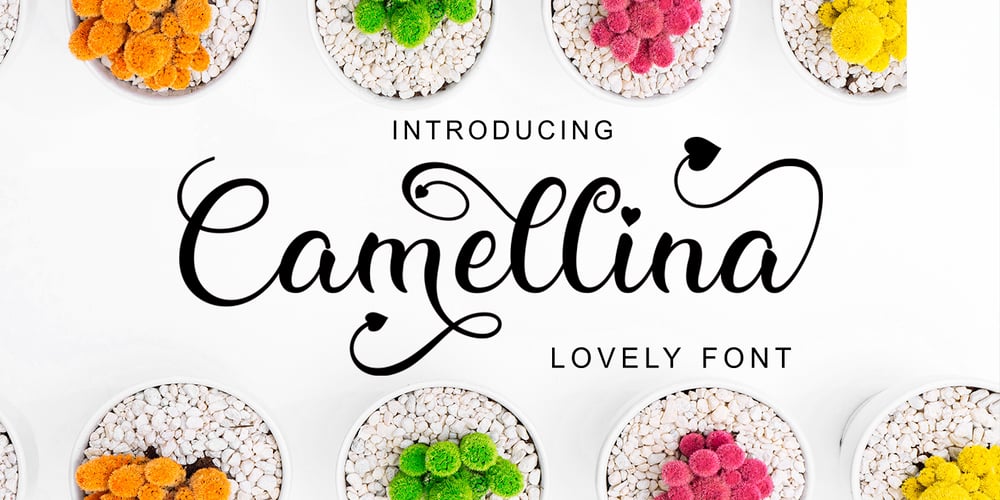
Camellina Font Family was designed by Jamhur and published by Ajibatype. Camellina contains 1 styles and family package options. Camellina Script is a clean and beautiful script font. Featuring lovely swashes with irregular baselines, this font will be an incredibly asset to your fonts’ library. It is also PUA encoded which means you can access all of the glyphs and swashes with ease!